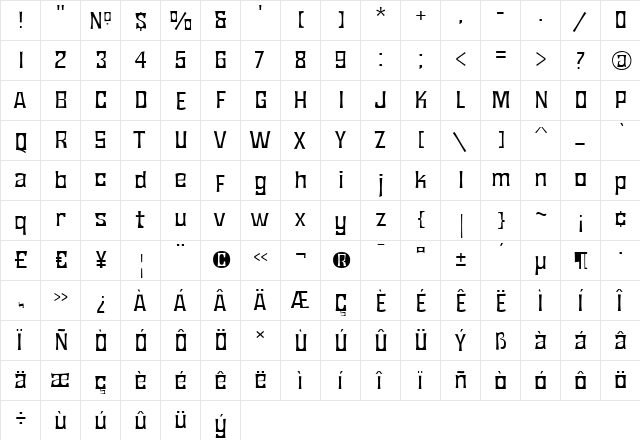
JMH Bronze Fine Regular Font Preview
JMH Bronze Fine Regular
JMH Bronze Fine Regular Font Details
Design Context for JMH Bronze Fine Typeface
JMH Bronze Fine is a composed and adaptable typeface that performs quietly and consistently across a wide range of design contexts.